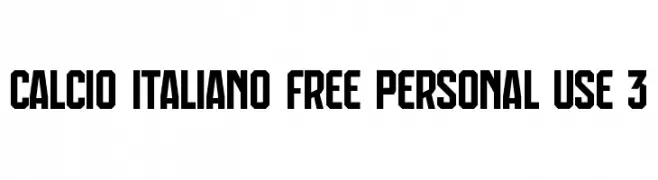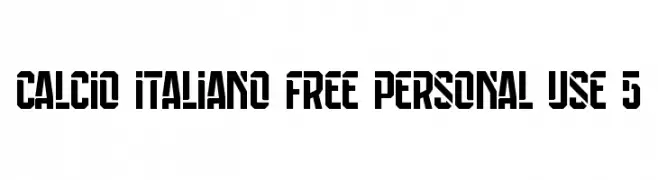
A bold, geometric font with a vintage sports-inspired design.
A bold, geometric font with a three-dimensional shadow effect and sharp edges.
A bold, dynamic font with a three-dimensional effect and angular design.
A bold, geometric font with strong, angular lines and tight spacing.
A bold, geometric font with sharp angles and a modern look.
A bold, industrial font with mechanical and rivet-like details.